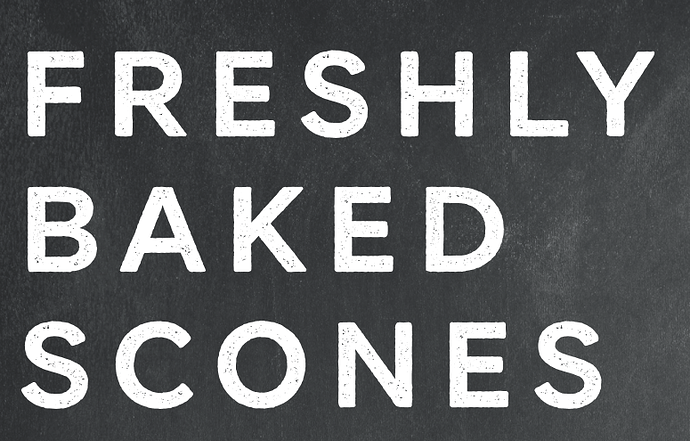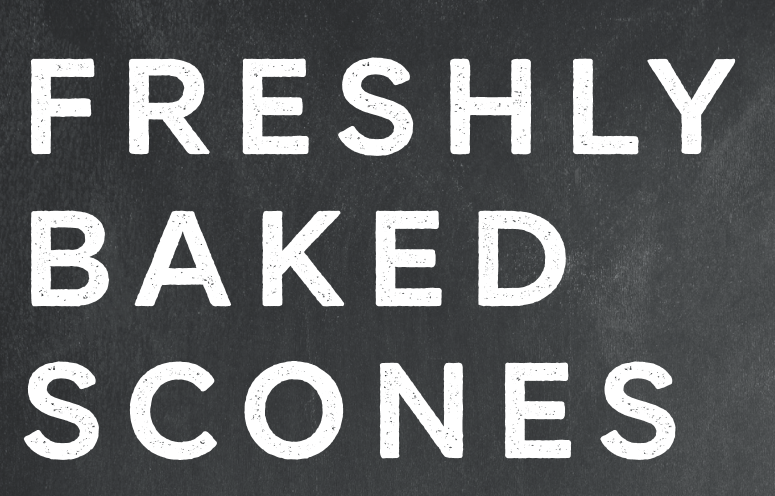
Hi please see the attached image. I have the font that is used, but the distressed look it has is created through some kind of overlay, presumably in inDesign or similar. Does anyone have any idea how this is created?